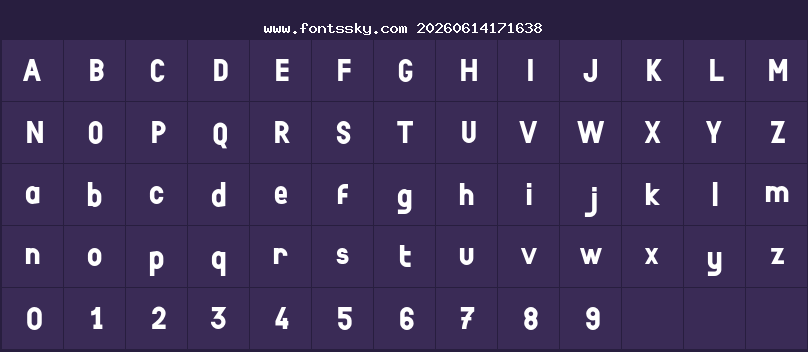
Boisu Full Preview
• Font Name: Boisu Full
• Full Font Name: Boisu Full
• Designer: Yann Gall
About Boisu Full.otf
Boisu Full.otf is a modern, elegant sans-serif font designed for ultimate readability and visual harmony. Perfect for branding, headlines, web design, and print materials.